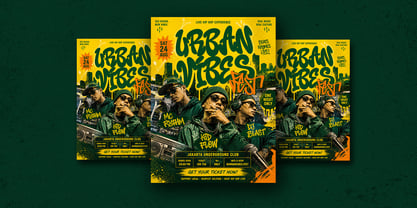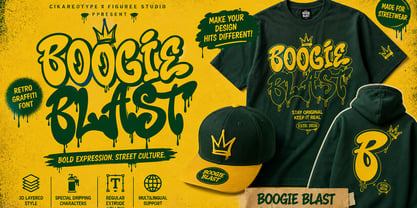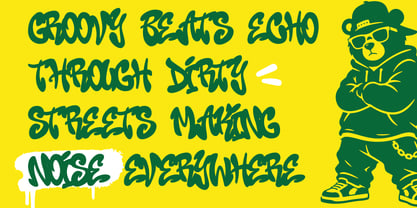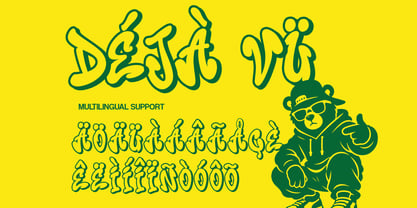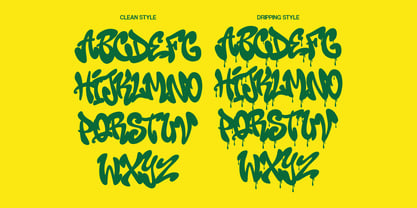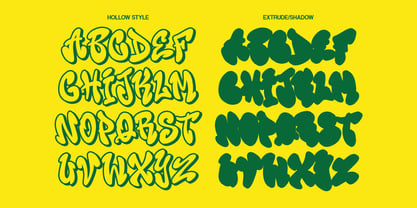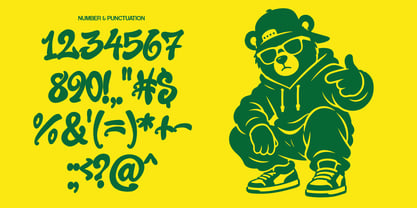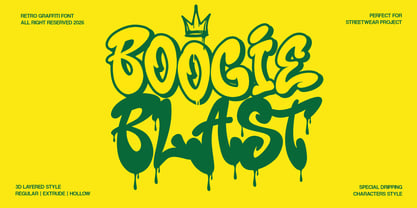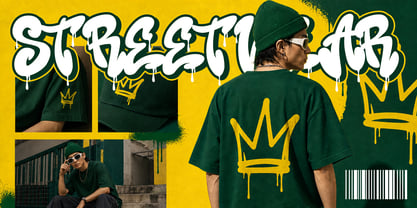
Boogie Blast
The Boogie Blast Font Family was designed by Sipanji and published by Sipanji21. Boogie Blast contains 4 styles and family package options. More about this family
Boogie Blast is a 3D groovy retro graffiti typeface that combines vintage typography aesthetics with modern street art influences. Designed to capture the spirit of retro funk culture and urban creativity, this font delivers a bold and playful visual identity that stands out across various design applications.
The defining feature of Boogie Blast is its four-style system: Regular, Dripping, Hollow, and Extrude. The Regular style provides the foundation with bold, smooth, and groovy letterforms inspired by retro design. The Dripping style adds expressive paint-like effects, introducing movement and a graffiti-inspired feel. The Hollow style offers outline variations that are ideal for layering and experimental compositions. The Extrude style adds depth and dimension, creating a strong 3D effect that enhances visual impact.
Boogie Blast includes uppercase characters designed with rounded shapes and flowing curves. These forms create a friendly yet bold appearance, making the font highly visible and engaging. Numbers and punctuation are included, ensuring full functionality for a wide range of design needs.
With multilingual support, Boogie Blast can be used across different languages, making it suitable for global projects. This versatility allows designers to maintain a consistent visual identity across various markets.
This font excels in projects that require bold and expressive typography. It is ideal for posters, album covers, branding, packaging, merchandise, social media graphics, and digital campaigns. Its retro-groovy style combined with graffiti elements makes it particularly effective for music-related designs and youth-oriented branding.
The four styles provide exceptional creative flexibility. Designers can combine styles to create layered effects, adding depth, contrast, and visual interest. This makes Boogie Blast a powerful tool for experimental typography.
From a design perspective, Boogie Blast works best as a focal point. Its bold shapes naturally draw attention, making it perfect for headlines and key messaging. Designers can pair it with minimalist fonts to create balance.
Technically, the font is optimized for both print and digital use. Its vector-based structure ensures high-quality output across different formats and sizes.
Boogie Blast is more than just a font—it is a visual celebration of retro culture and urban creativity. It allows designers to create vibrant, expressive, and memorable designs.